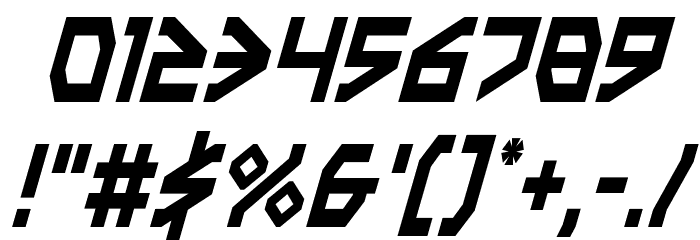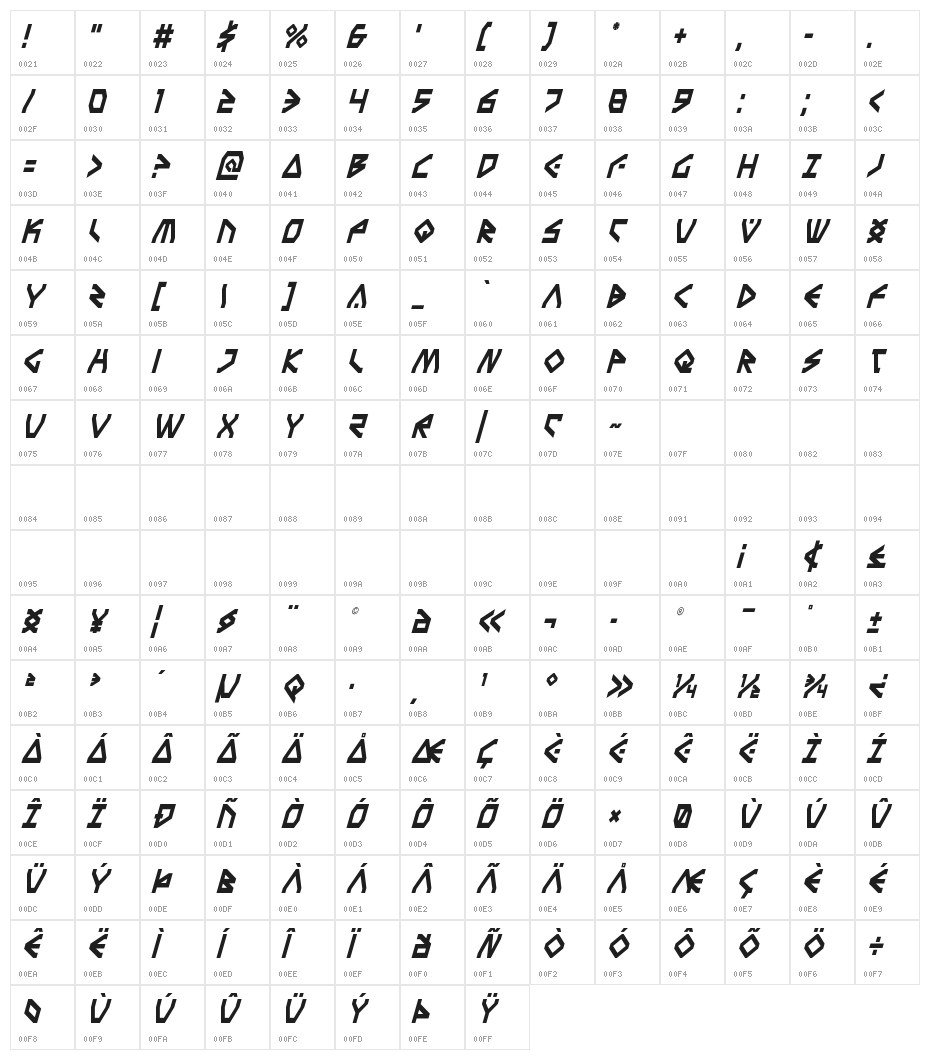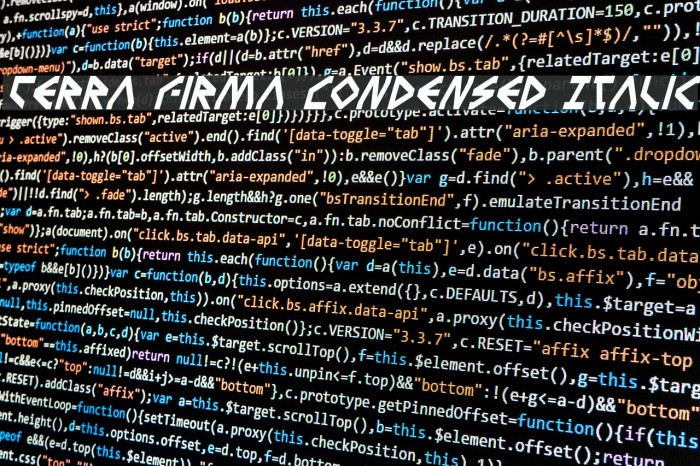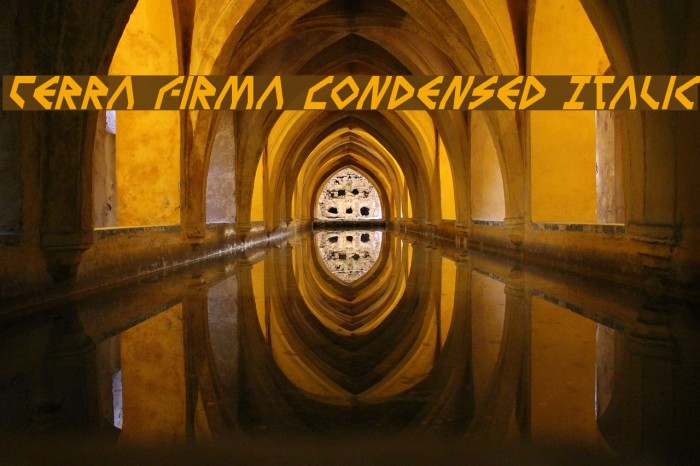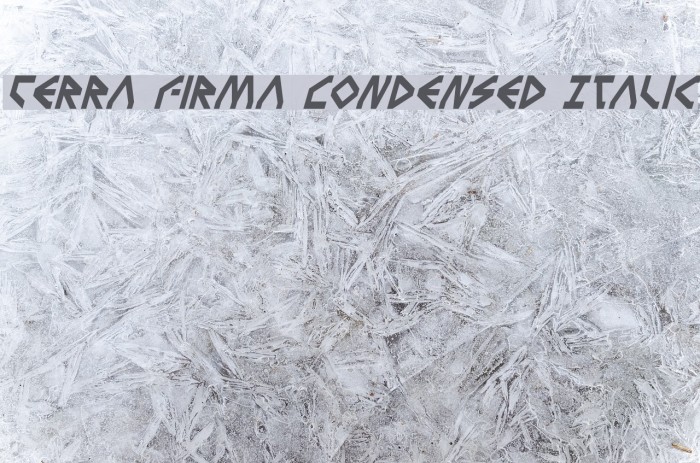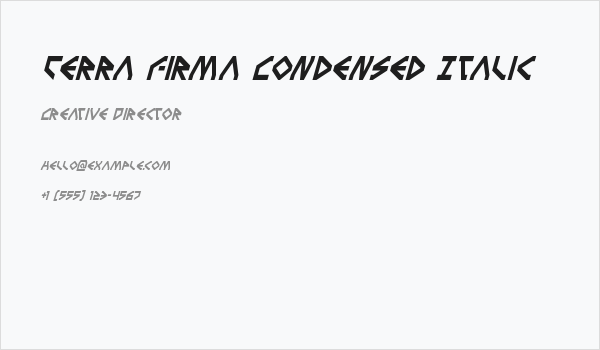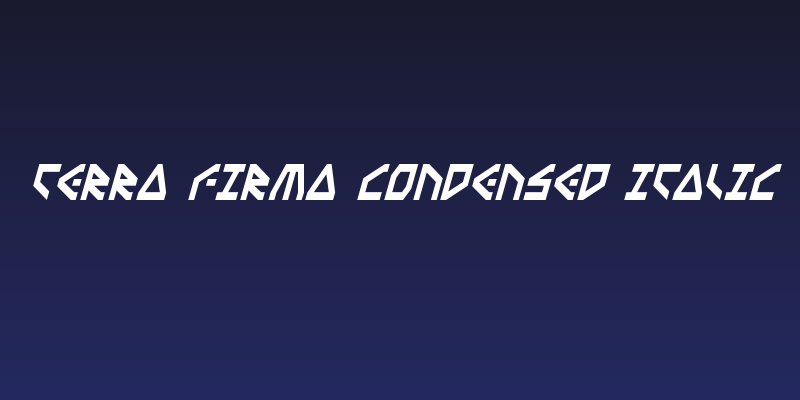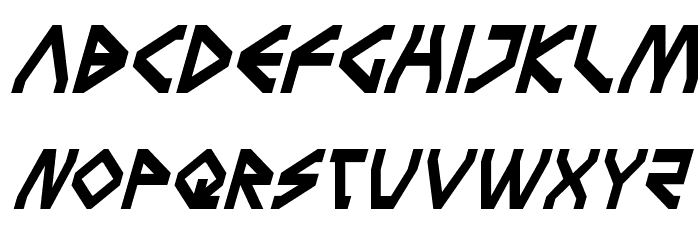
Terra Firma Condensed Italic Font
Terra Firma Condensed Italic Description
This font features a bold, angular design with a futuristic and dynamic appearance. The characters are sharply cut with distinct geometric shapes, giving it a modern and edgy feel. The condensed style allows for efficient use of space, making it suitable for impactful headlines or titles. The italic slant adds a sense of motion and urgency, enhancing its suitability for projects that require a strong visual impact. The font maintains consistent stroke thickness, providing a uniform look across all characters. Its unique style makes it stand out, ideal for creative and innovative design projects.
| Proposed Projects | Ideal for sci-fi themed posters, video game titles, tech branding, and modern advertising. |